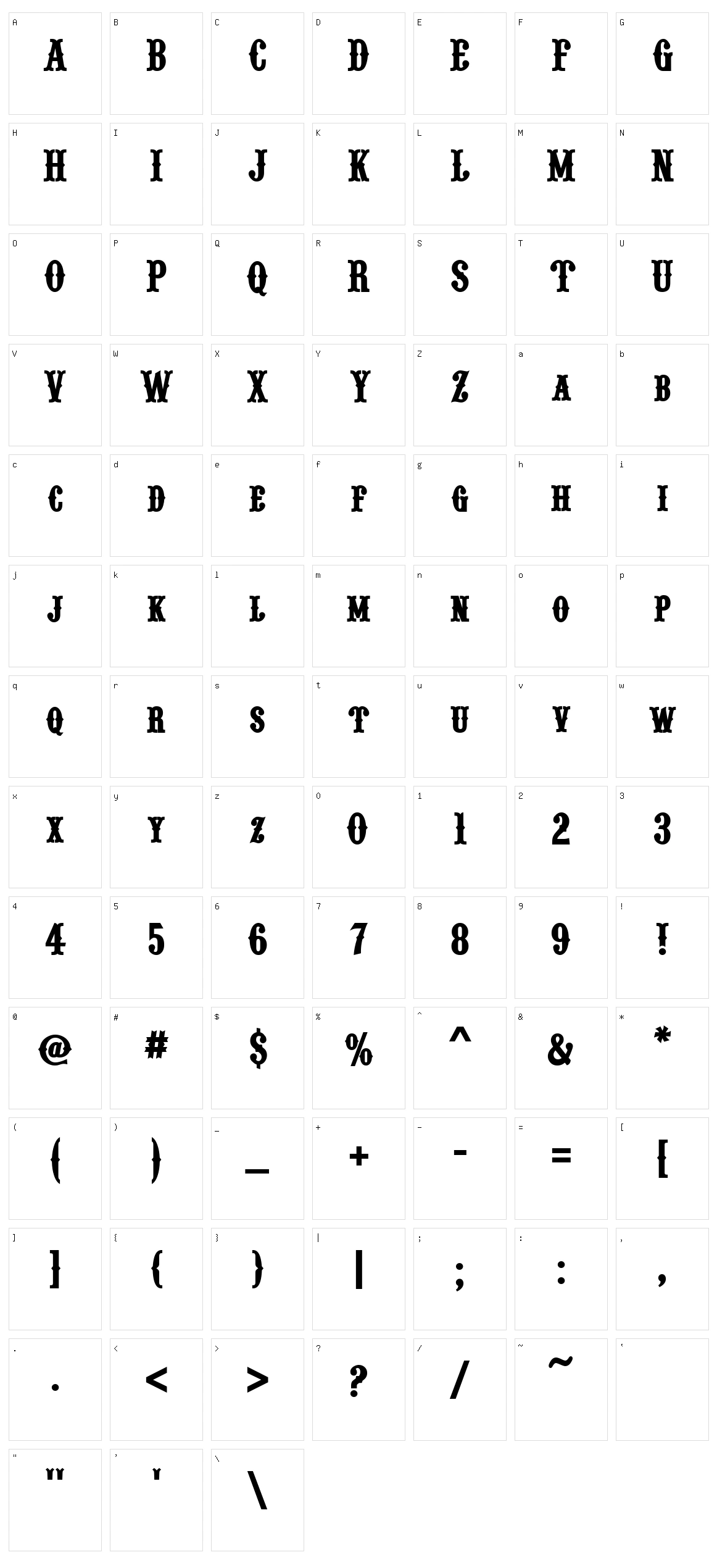
"Pointedly Mad" is the 20th free font from Rich Gast.
The character set includes:
Upper and lower case (Small Cap) letters and numbers.
The majority of punctuation and few additional characters.
Note: The keystroke ` (grave) is a special spacing element to be
used between character combinations such as "Th" to obtain whatever
desired spacing you want to achieve.
"Pointedly Mad" got its name from the fact that I started off to make
the font used on so many covers of MAD Magazine. But, as in a lot of
things I do, I took off in another direction. So instead of round
bumps on the letters, I ended up with triangular points, like the top
of my pointed little head. I've gone "pointedly mad"!